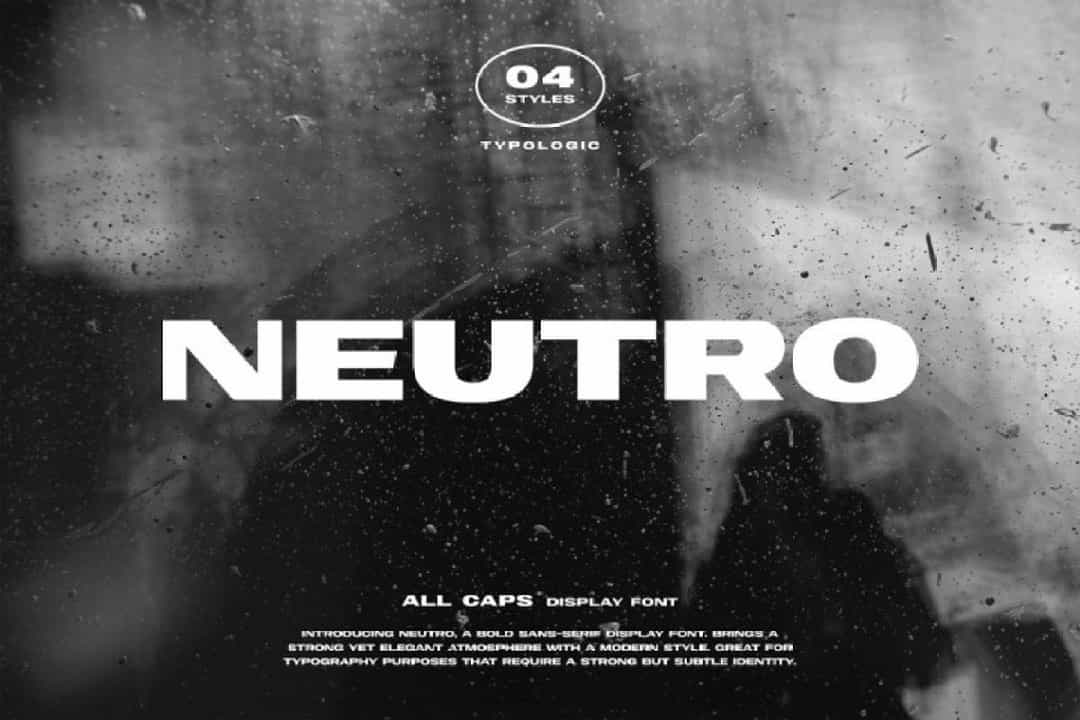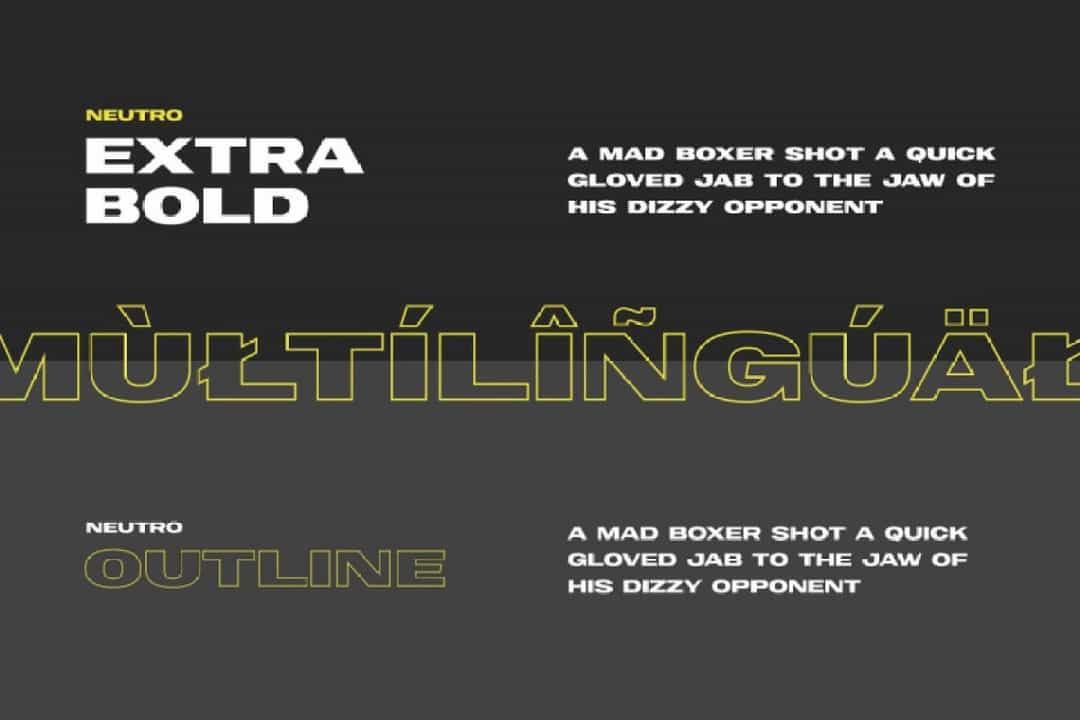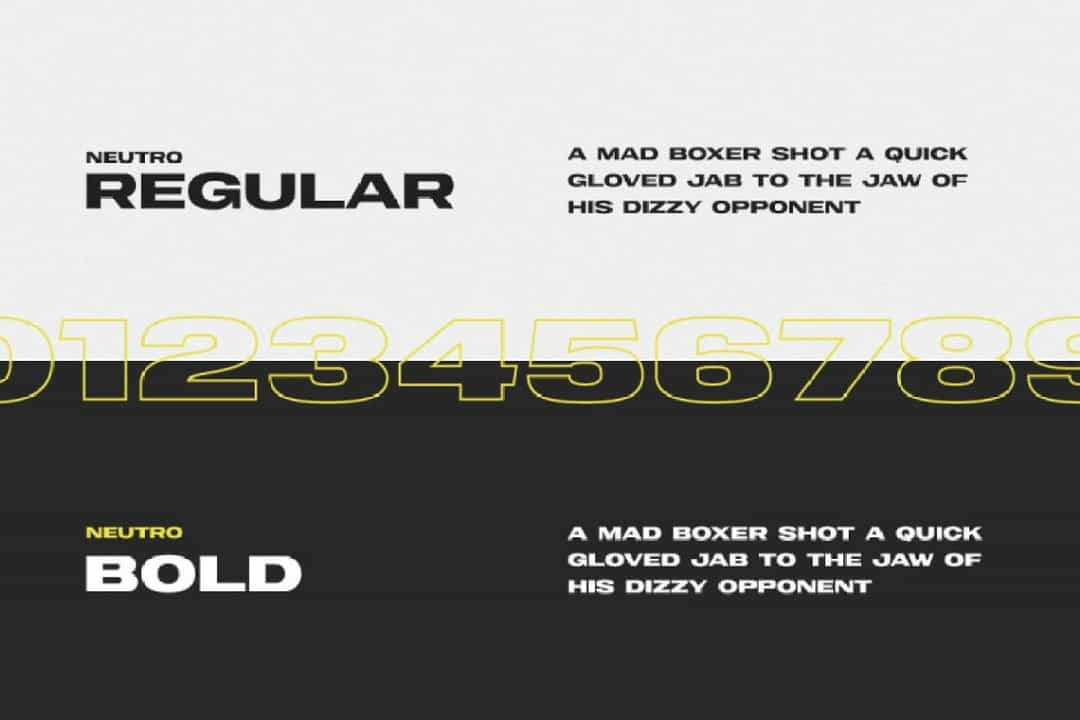
Neutro font is a display font that comes under the category of the sans serif fonts. This font is a perfect canvas for a powerful but not a harsh style, giving a clean and minimalistic look suitable for modern projects, especially the ones with moderate typographical emphasis.